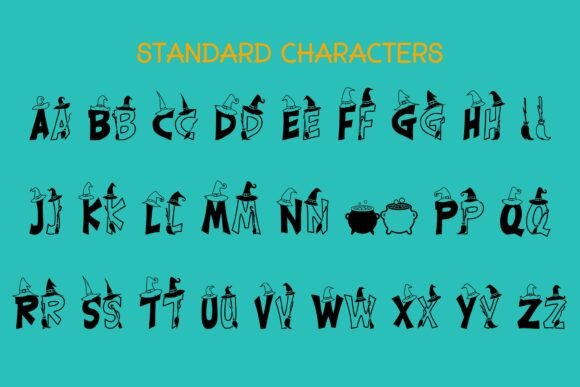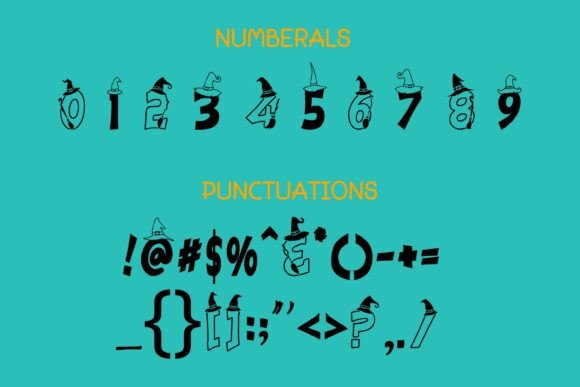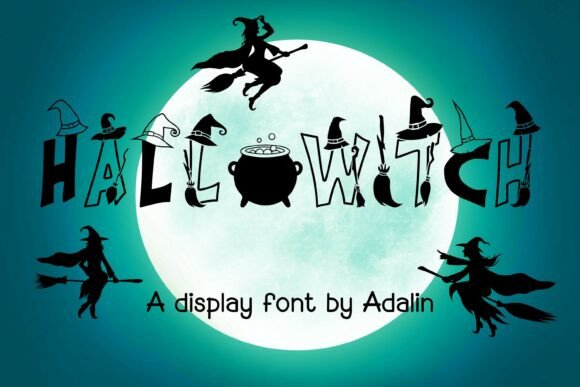
Introducing Hallowitch Font: The Perfect Spooky Season Companion
As the spooky season approaches, designers and crafters are on the lookout for the perfect font to add a touch of eerie elegance to their creations. Look no further than Hallowitch Font, a whimsical Halloween display font that’s sure to cast a spell on your audience. With its curly flourishes and mysterious vibe, Hallowitch Font is the ideal choice for creating eye-catching posters, invitations, party flyers, trick-or-treat signs, social media graphics, and more.
The Magic of Hallowitch Font
Hallowitch Font is a unique and captivating typeface that’s specifically designed to evoke the spirit of Halloween. Its curly flourishes and elegant lines give it a playful yet sophisticated feel, making it perfect for a wide range of design applications. Whether you’re creating a spooky poster, a festive party invitation, or a howling good social media graphic, Hallowitch Font is sure to add a touch of magic to your design.
Key Features of Hallowitch Font
- Whimsical Design: Hallowitch Font features a whimsical design with curly flourishes and elegant lines, giving it a playful yet sophisticated feel.
- Eerie Elegance: The font’s eerie elegance makes it perfect for creating spooky and festive designs that are sure to capture the spirit of Halloween.
- Display Font: Hallowitch Font is a display font, making it perfect for use in headlines, titles, and other large-format designs.
- Multipurpose: The font is versatile and can be used for a wide range of design applications, including posters, invitations, party flyers, trick-or-treat signs, social media graphics, and more.
Hallowitch Font is a dream come true for designers and crafters who love to create spooky and festive designs. The font is easy to use and can be easily integrated into your design workflow. With Hallowitch Font, you can create stunning designs that are sure to impress your clients or social media followers.
Tips for Using Hallowitch Font
- Pair with Other Fonts: Hallowitch Font pairs perfectly with other fonts, especially serif and sans-serif fonts. Experiment with different font combinations to create a unique look.
- Use in Headlines and Titles: Hallowitch Font is perfect for use in headlines and titles. Use it to create eye-catching posters, invitations, and party flyers.
- Add a Pop of Color: Hallowitch Font looks great with bold and bright colors. Experiment with different colors to add a pop of color to your design.
- Experiment with Effects: Hallowitch Font looks great with effects such as glitter, sparkles, and other Halloween-themed effects. Experiment with different effects to create a unique look.
- What is Hallowitch Font?: Hallowitch Font is a whimsical Halloween display font with curly flourishes and eerie elegance.
- What is Hallowitch Font used for?: Hallowitch Font is perfect for creating spooky and festive designs, including posters, invitations, party flyers, trick-or-treat signs, social media graphics, and more.